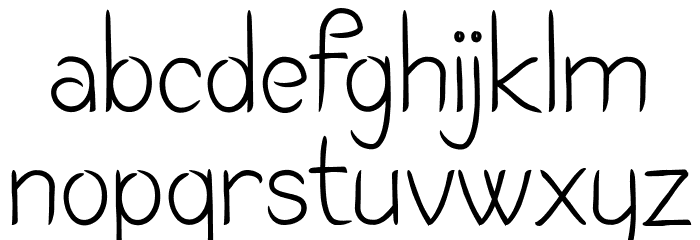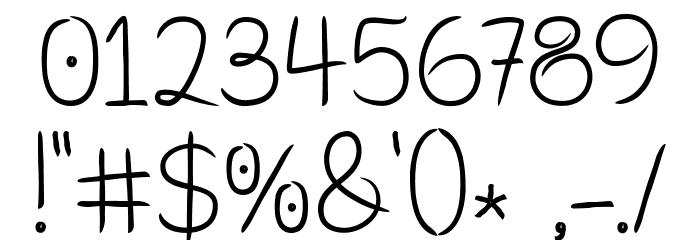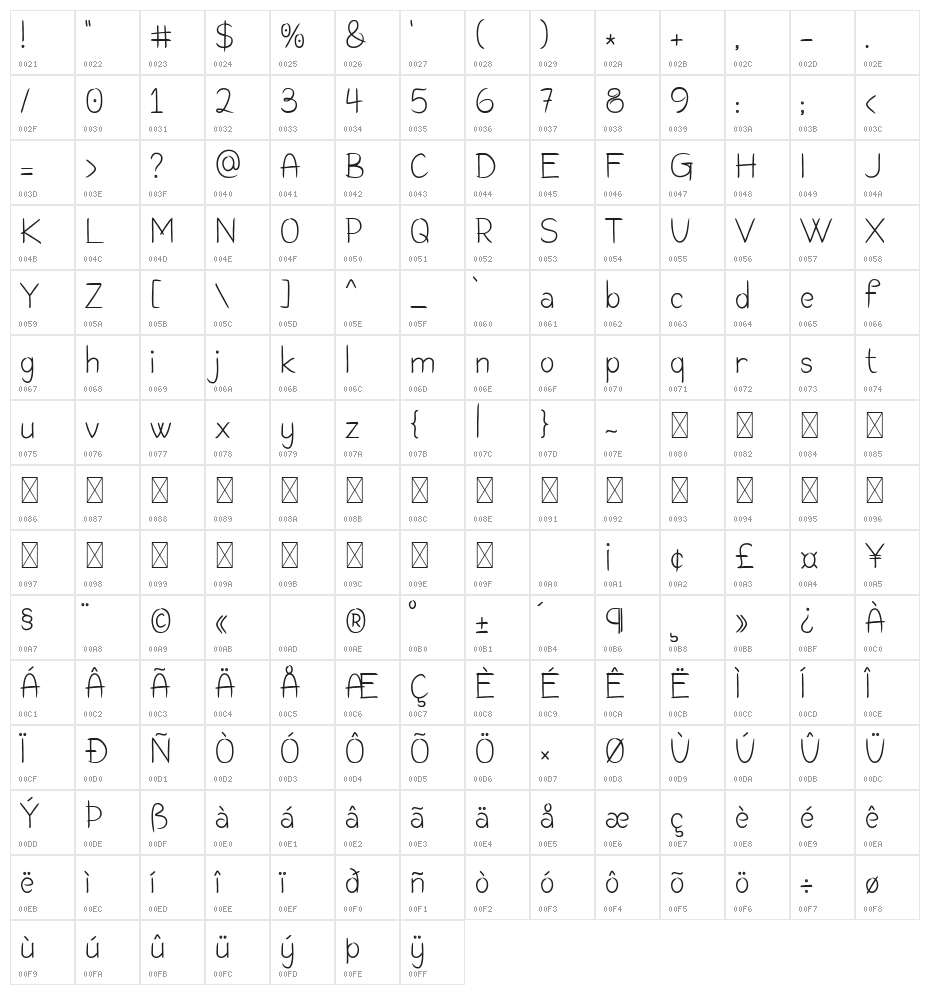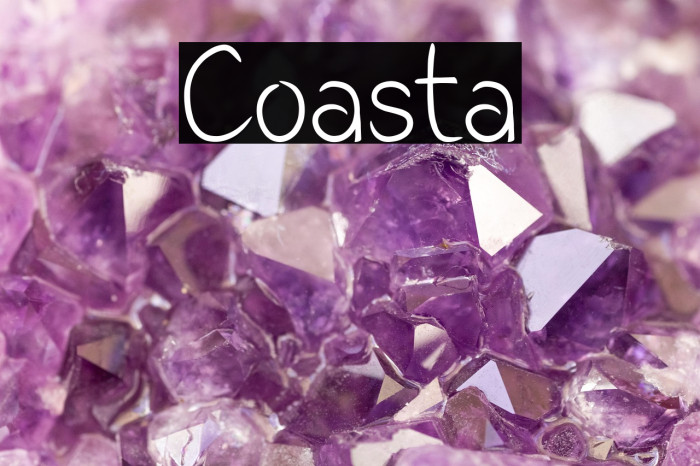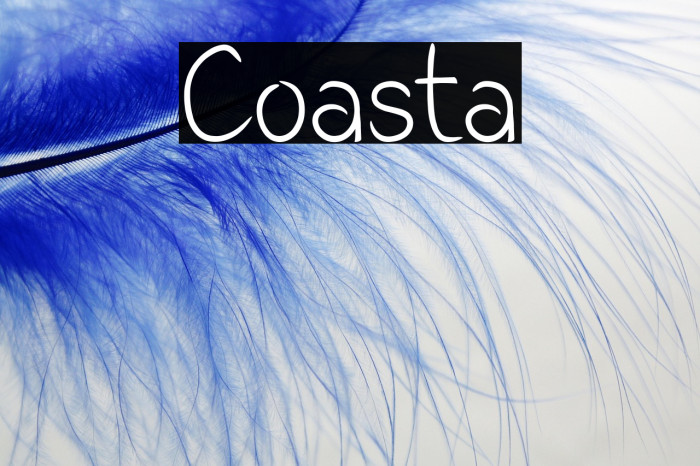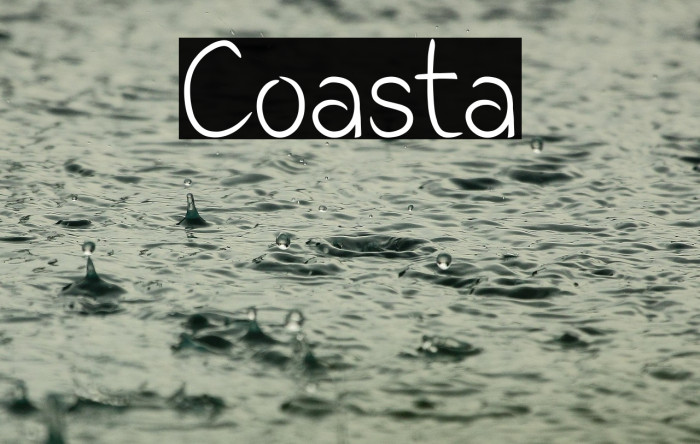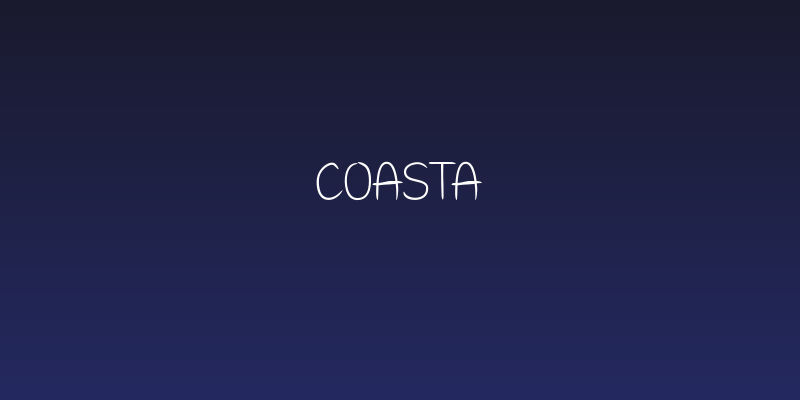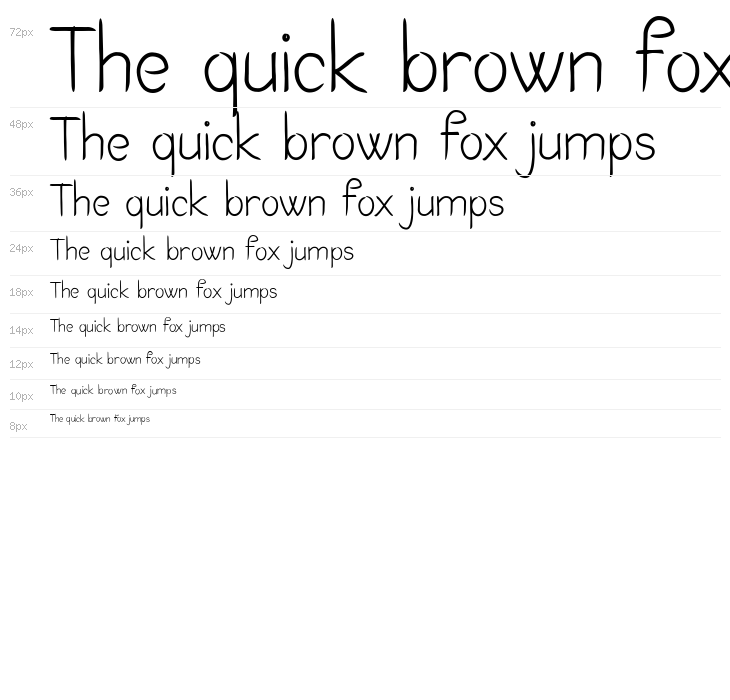
Coasta Font
This font features a playful and casual handwritten style, characterized by its thin, slightly irregular strokes that give it a friendly and approachable appearance. The letters are tall and narrow, with a consistent height across both uppercase and lowercase characters. The rounded edges and subtle variations in line thickness add a touch of whimsy, making it ideal for informal and creative projects. The numerals and special characters maintain the same playful aesthetic, ensuring a cohesive look across all text elements.
A playful, handwritten font with thin, irregular strokes and a casual style.